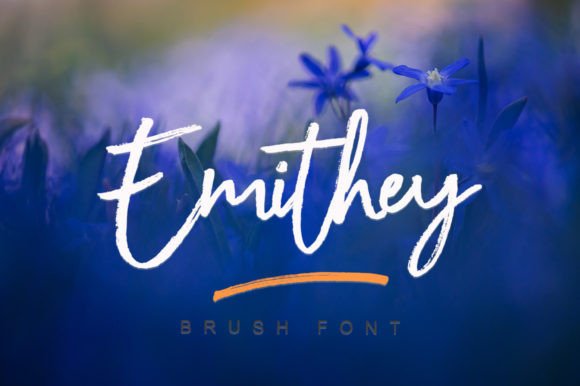
Behold, the Emithey Font, a resplendent script typeface that captivates the essence of romance and elegance. Its characters, crafted with the utmost care and precision, pirouette and twirl across the baseline, bestowing a touch of sophistication upon any design project.
With its sweeping strokes and delicate curves, the Emithey Font exudes the allure of a bygone era, evoking a sense of nostalgia and timeless beauty. It is a font that speaks to the heart, inviting you to embark on a journey of self-expression and creativity.
Designed by the esteemed Stripes Studio, the Emithey Font is a masterpiece of digital artistry. Its PUA encoding allows for effortless access to all of its glyphs and swashes, granting you the freedom to explore a world of infinite possibilities.
Whether you seek to create captivating tattoos, heartfelt invitations, or striking logos, the Emithey Font is your perfect companion. Its versatility extends across a myriad of applications, from branding and marketing to web design and social media.
Unleash your imagination and let the Emithey Font guide you towards design excellence. Its enchanting aura will transform your creative visions into captivating realities, leaving an indelible mark on the hearts and minds of your audience.